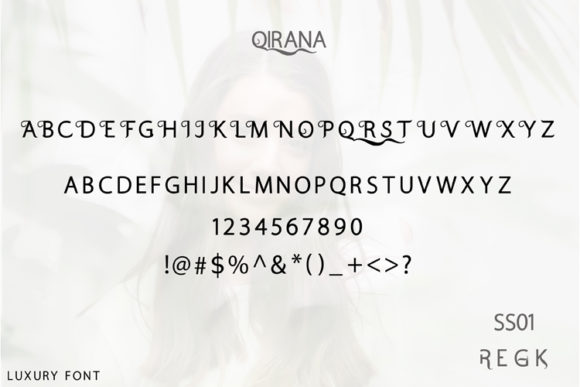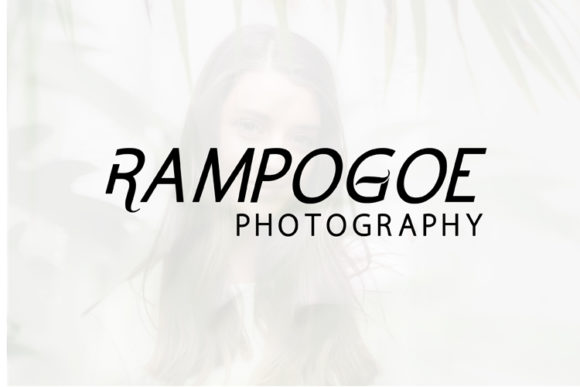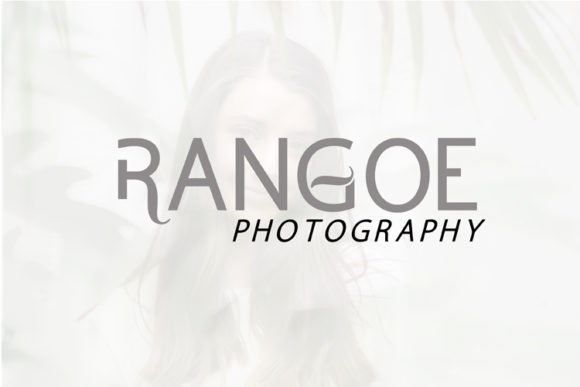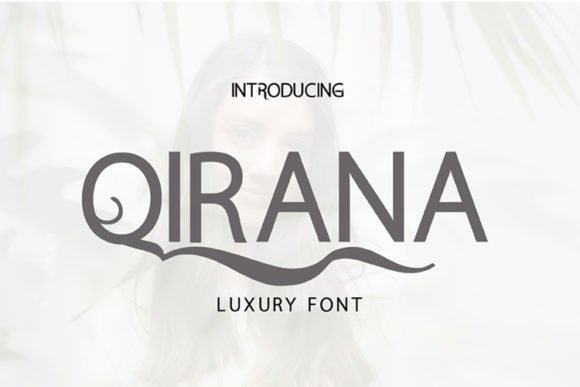
Introduction to Qirana Font
Qirana is a display font that combines minimalist style with beautiful flourishes.
Use it for any design project that requires a personalized appearance .